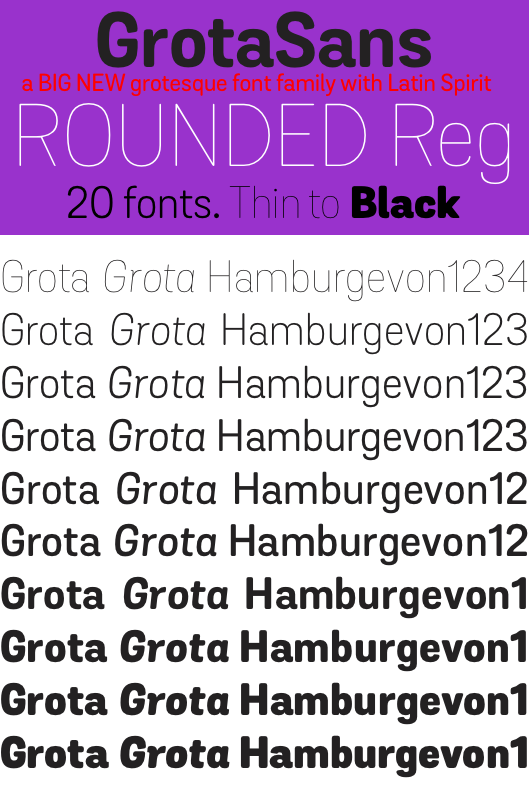
Grota Sans Rounded Regular family (20 fonts)
Grota Sans Rounded, designed by Eli Hernández and Daniel Hernández, is a grotesque font with Latin spirit. For print or web, the design is ideal for logos, brands, books, magazines, headlines, signage, etc.